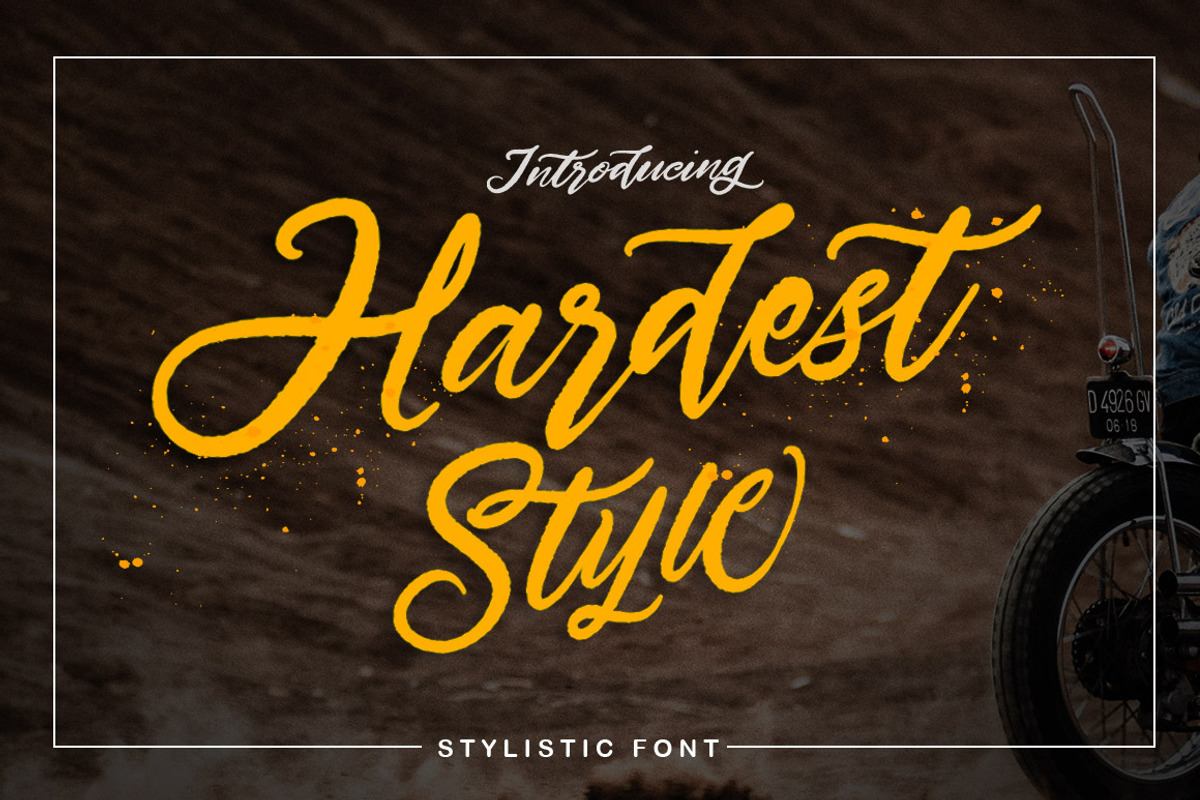
Hardest Style Brush Font Free Download is a gritty, high-energy brush script typeface that delivers bold impact with an urban edge. Inspired by street art, graffiti tags, and hand-painted signage, this font is perfect for music covers, extreme sports branding, apparel design, posters, and social media content that needs a raw, rebellious vibe.
With aggressive strokes, textured edges, and an expressive flow, Hardest Style adds a dynamic, handcrafted look to any project. It’s ideal for creatives who want to convey attitude, motion, and a sense of bold individuality in their typography.
The font includes uppercase and lowercase characters, numerals, punctuation, and basic multilingual support. It works well in both digital and print formats, especially in large-scale designs where its brush detail and personality can fully stand out.